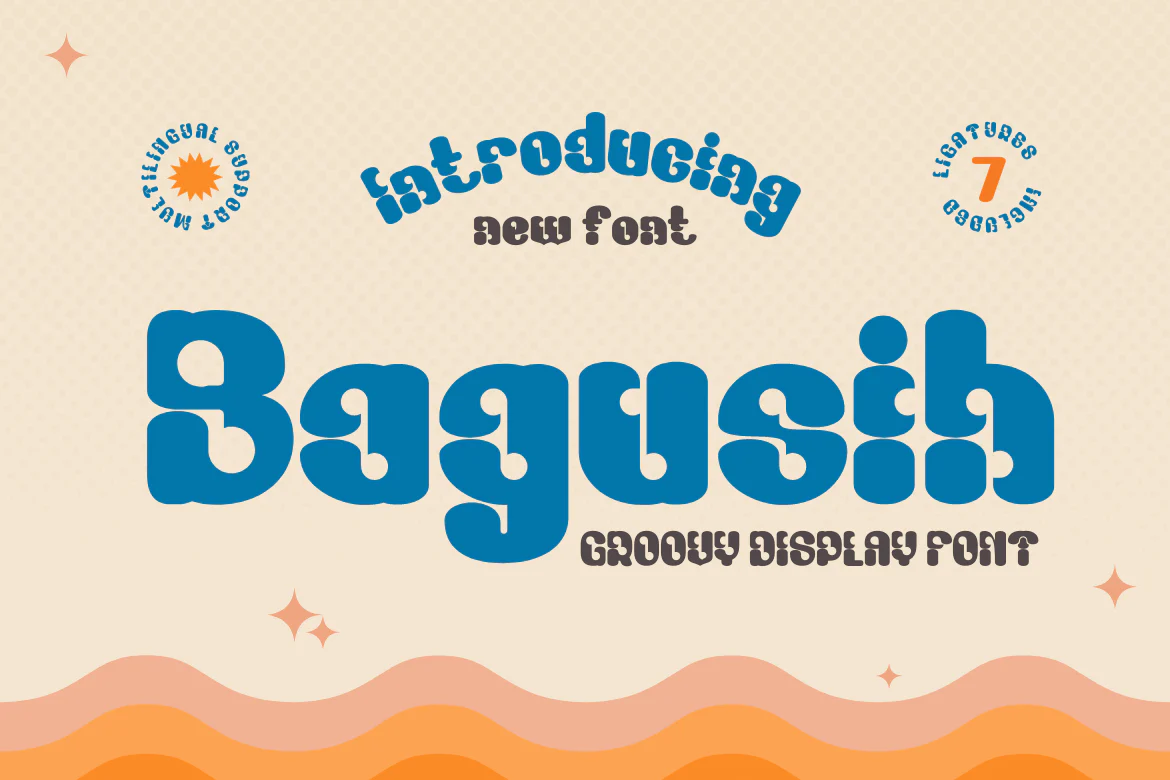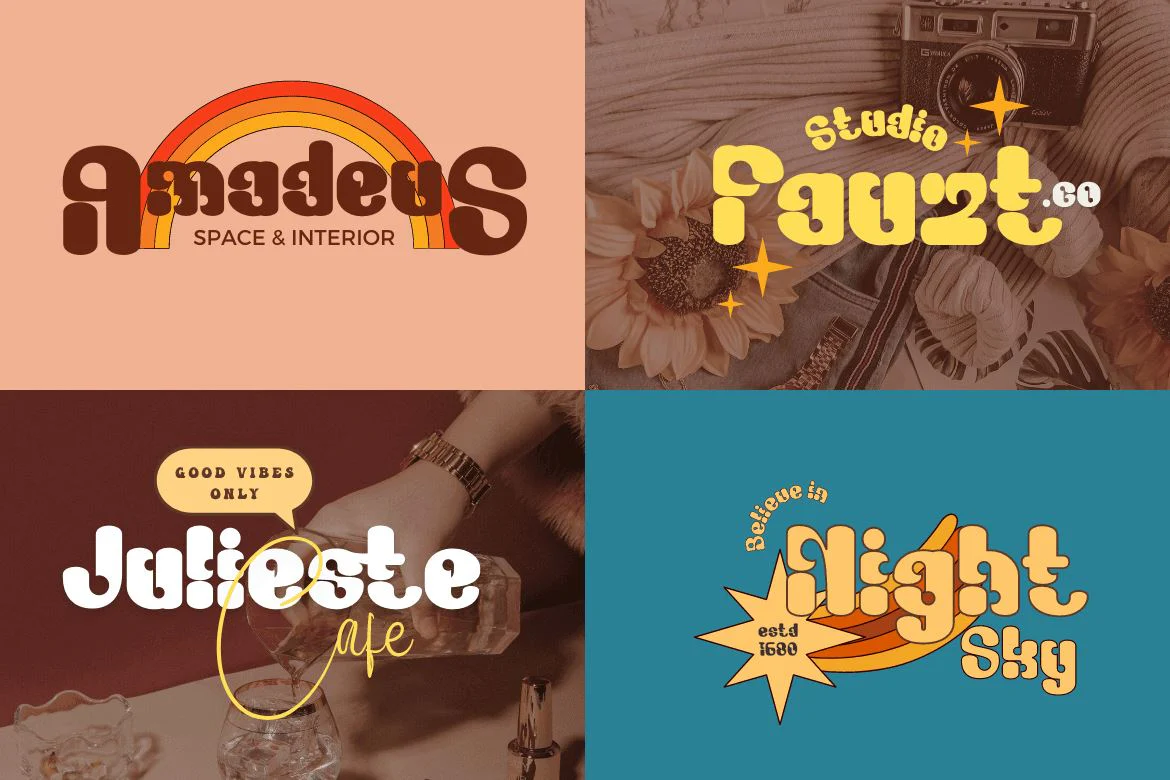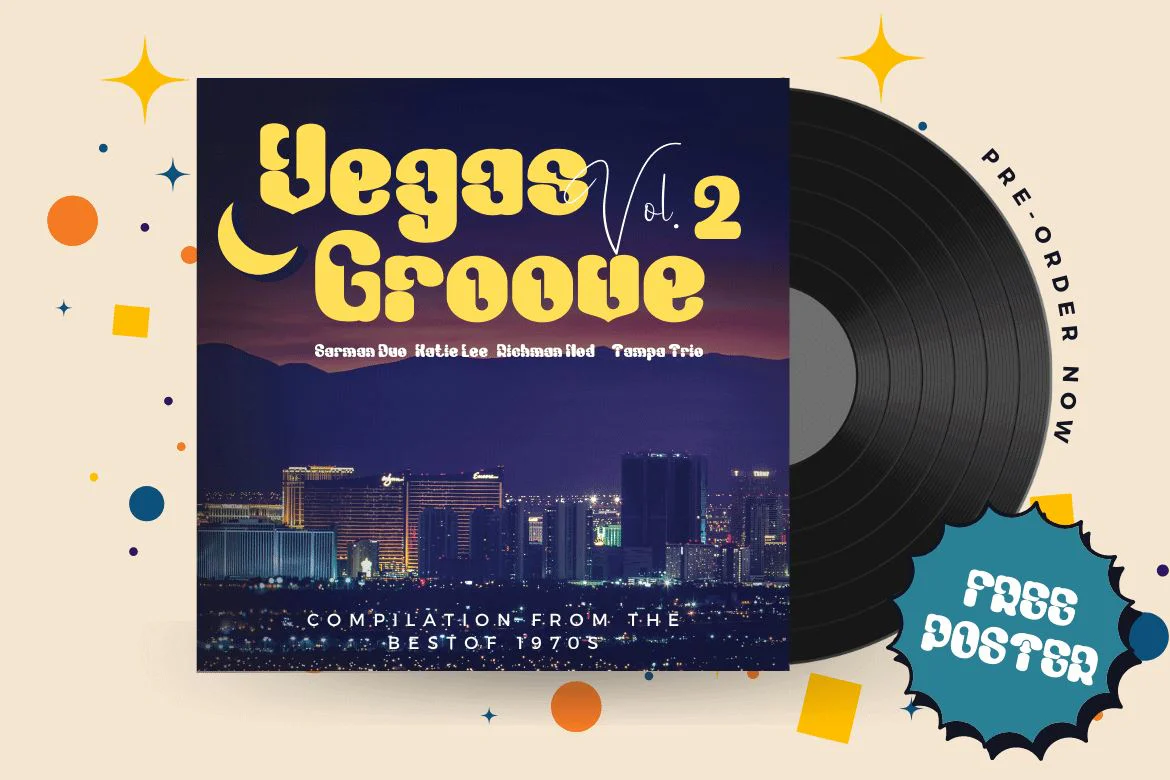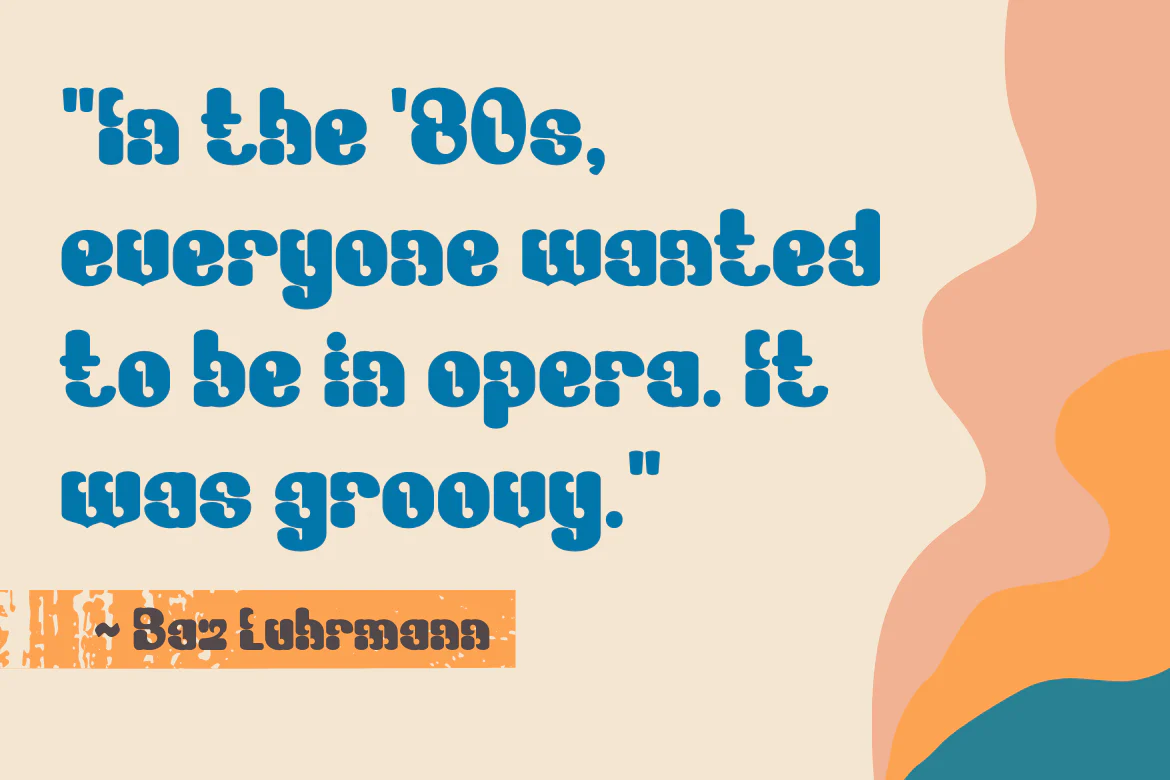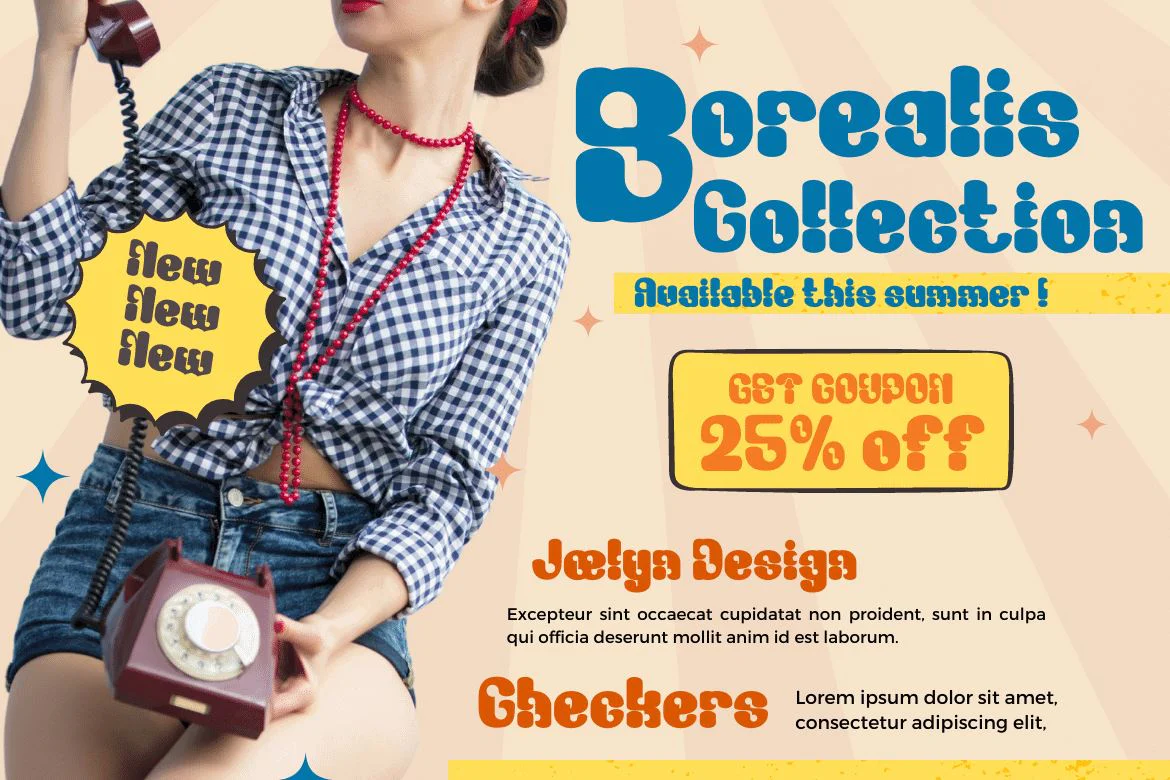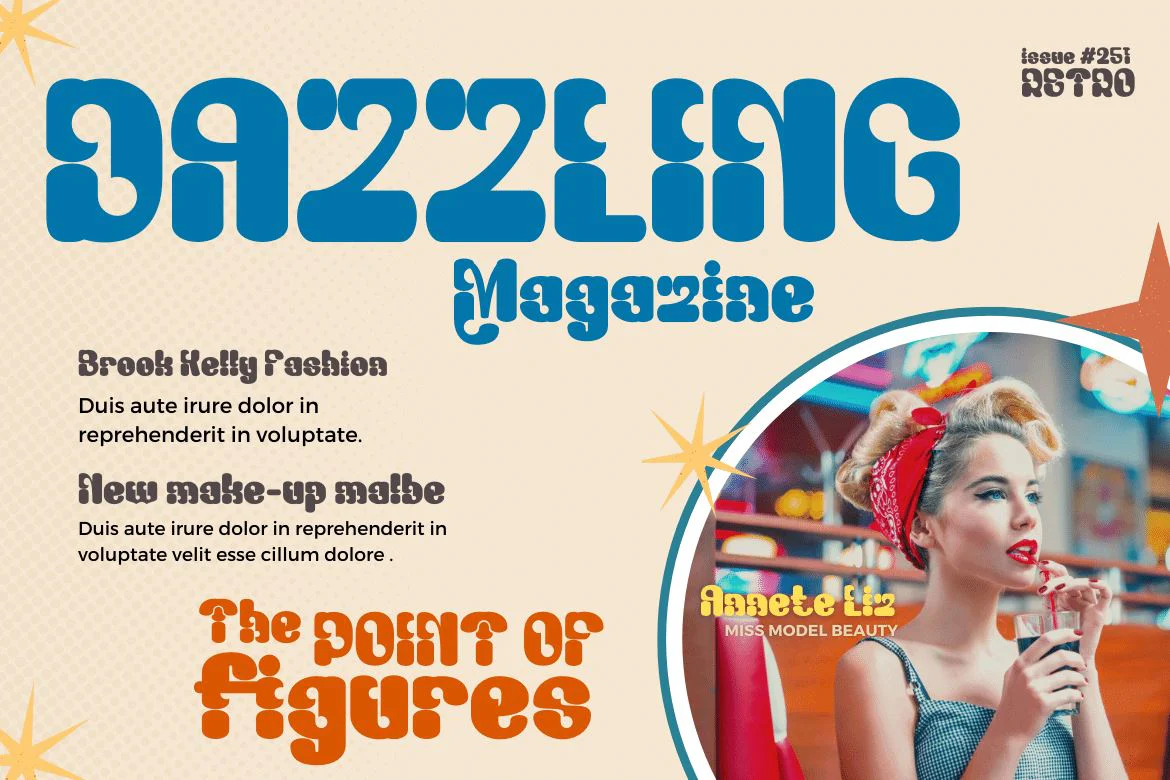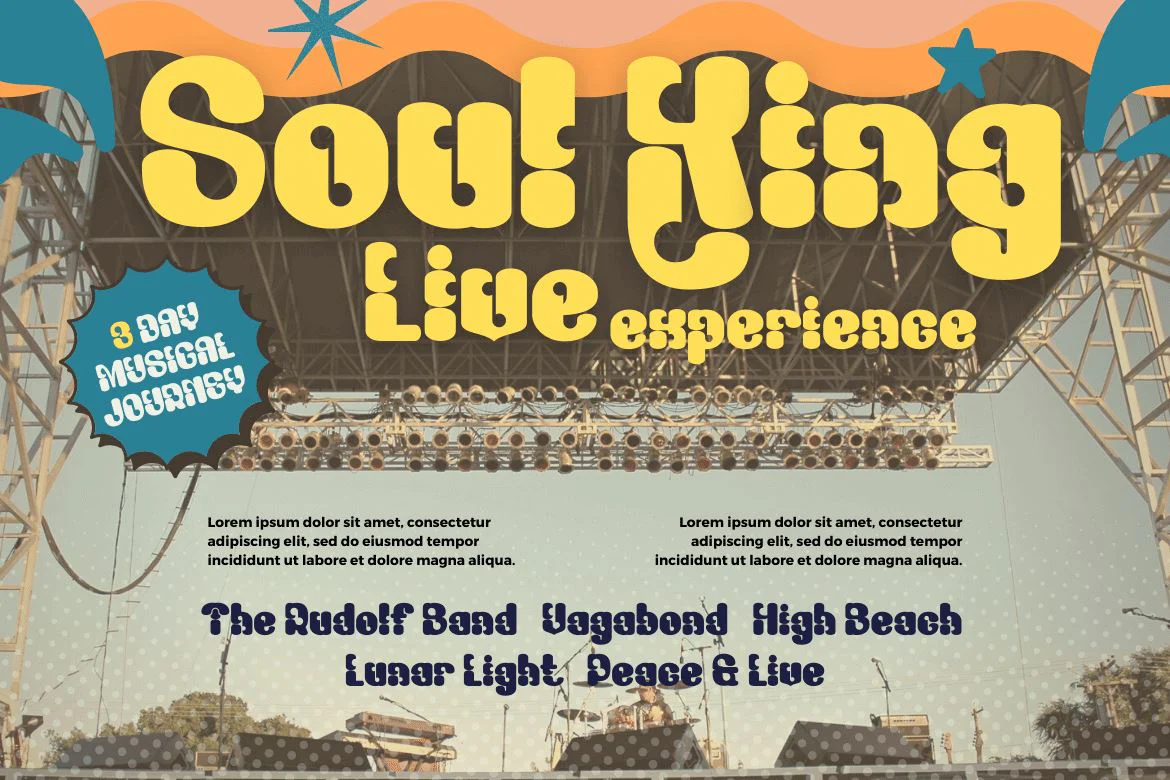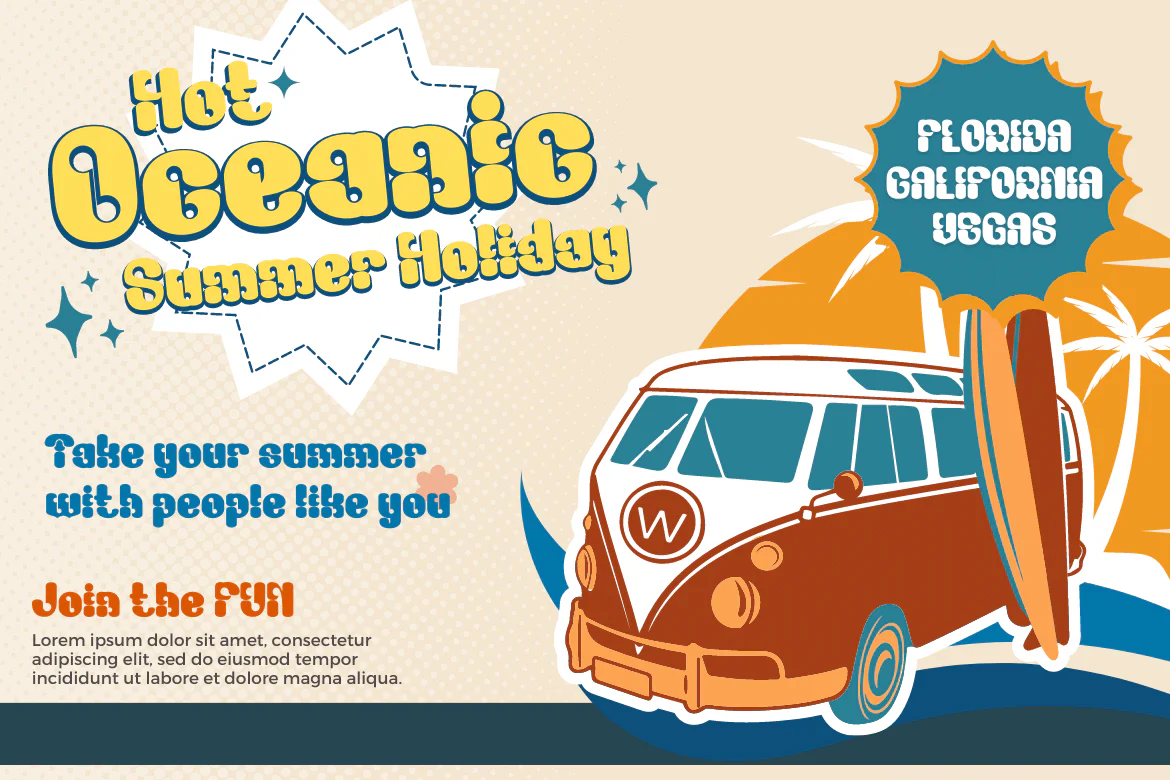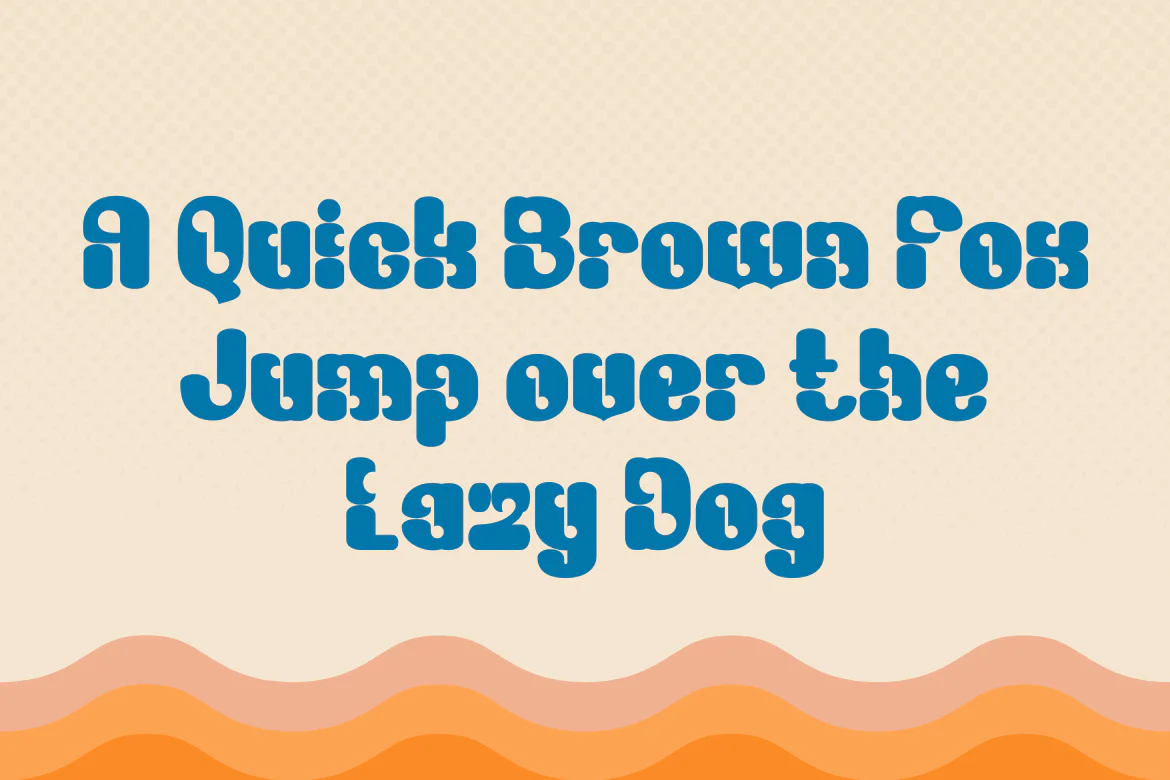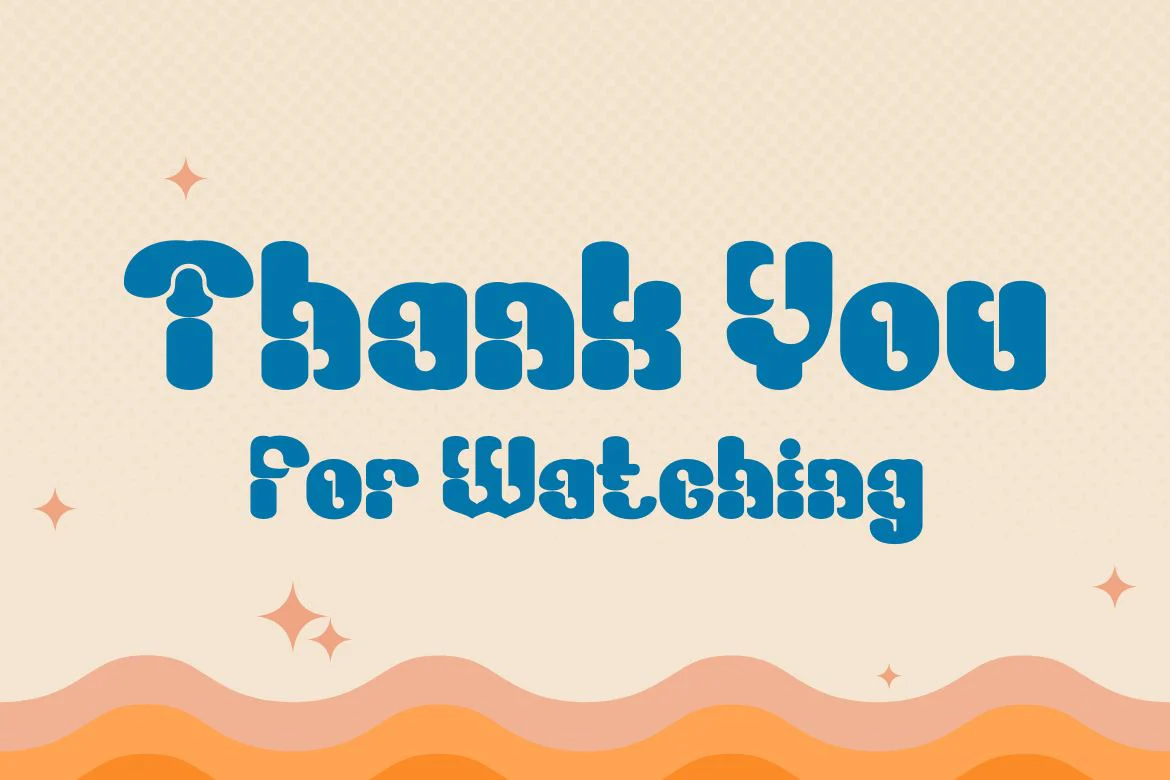
Bagusih | Groovy Retro Font
Bagusih is the perfect font for anyone who wants to bring their designs to life with a bold, unique look that’s sure to stand out from the crowd. With its retro-inspired design, this font is perfect for those who want to create a 60s-inspired aesthetic, or who want to give their designs a retro feel. And with its bold and geometric design, Bagusih is also perfect for those who want to create a geometric look with lots of impacts. So whether you’re looking for a retro or geometric look, Bagusih is the perfect font for you.